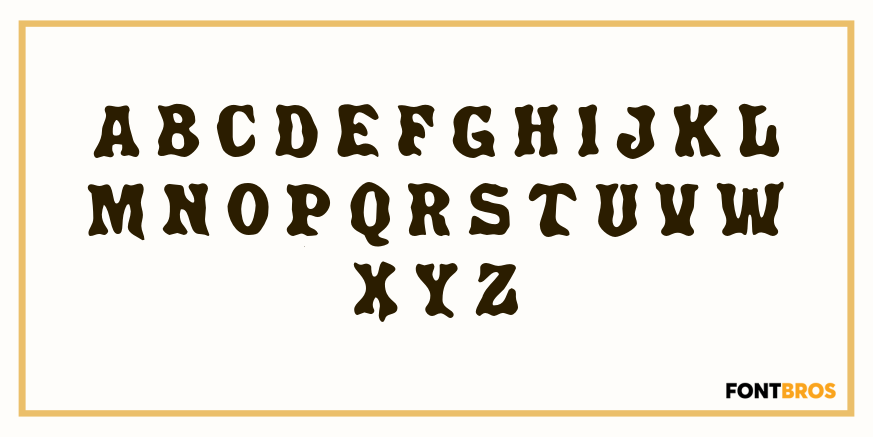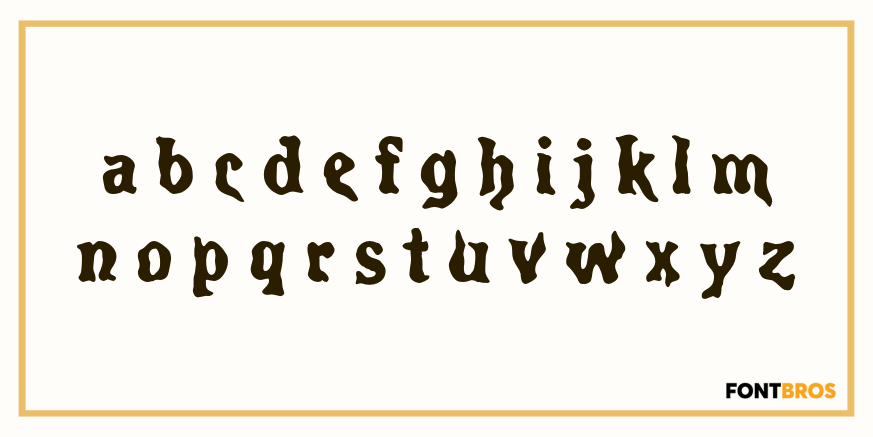
Ghost Show
Back in the days when we earned our living with a travelling magic show, we took the shaded font Lithotint, filled it in, modified some characters, and here is the result.
In those days, to use the font we had to cut and paste stats of individual letters by hand. You have it easier!
Ghost Show by Solotype